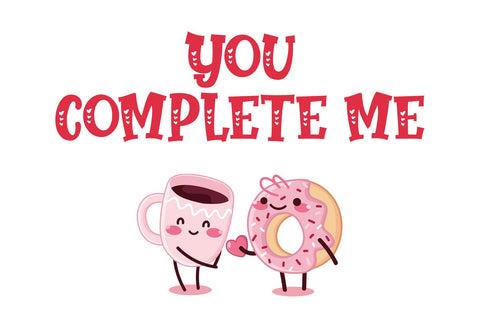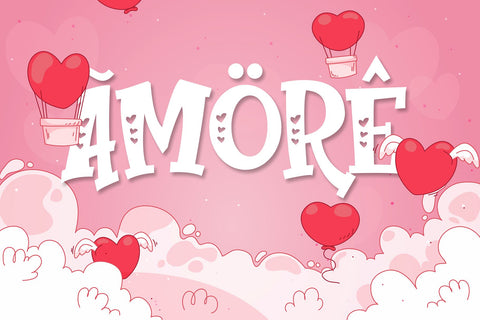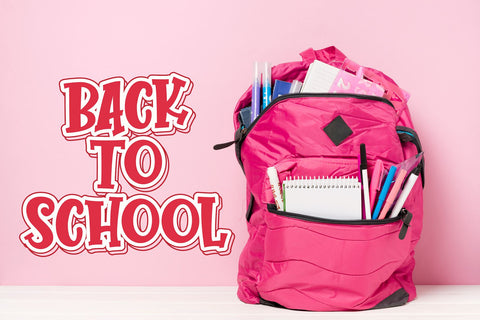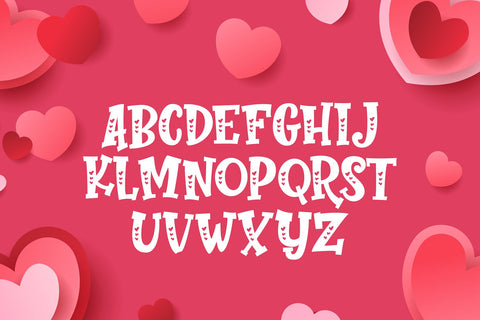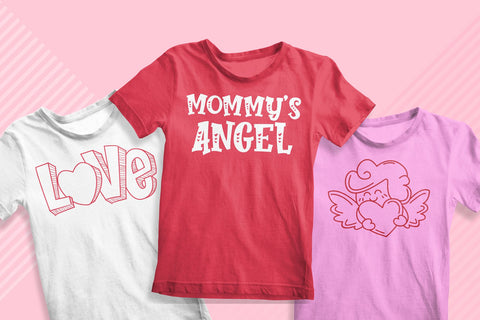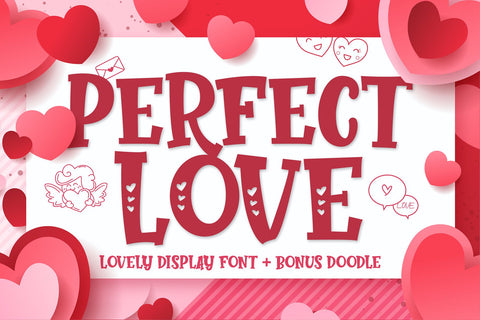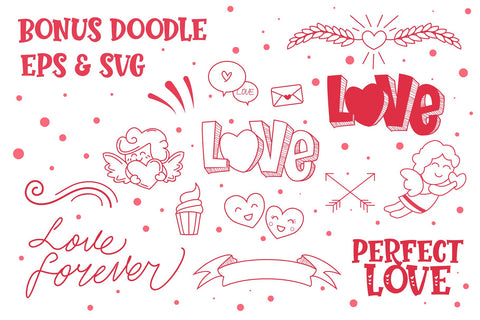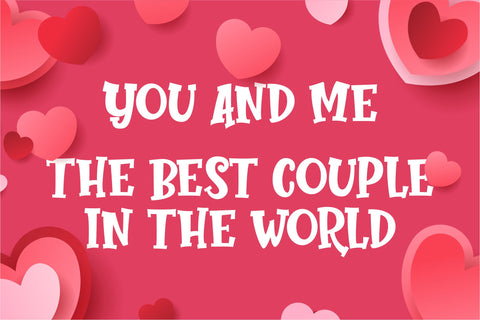
Perfect Love - Lovely Display Font | Bonus Doodle
Perfect Love is Lovely display font inspired by the warmth of love. Perfect Love comes with an awesome doodle, making it very perfect to use for quotes, logotypes, badges, labels, packaging, t-shirts, or simply use it in your next design project.